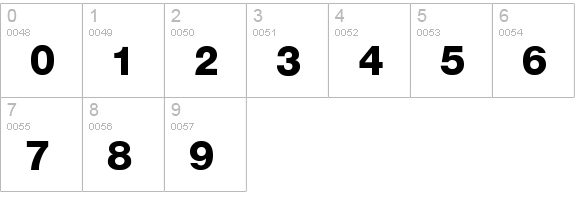
Olnova-ExtraBold is an extra-heavy, attention-grabbing variant in the Olnova typeface family \xE2\x80\x94 well suited to high-impact headlines, posters, and bold branding.
Olnova-ExtraBold is a stunning and impactful font that exudes strength and modernity. With its bold and eye-catching design, Olnova-ExtraBold is perfect for making a statement in headlines, posters, logos, and other design projects that require a bold touch. The thick strokes and sharp edges of this font command attention and convey a sense of power and authority. What’s even better is that Olnova-ExtraBold is available for free download at FontsMarket.com, making it easily accessible for designers and creatives looking to add a touch of boldness to their projects. Whether you're working on branding, advertising, or any other design project that demands a strong and dynamic font, Olnova-ExtraBold is sure to make a lasting impression. Download it for free today and take your designs to the next level!